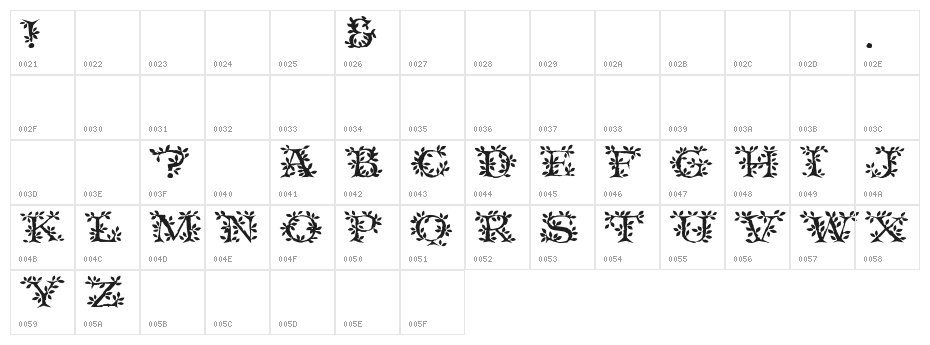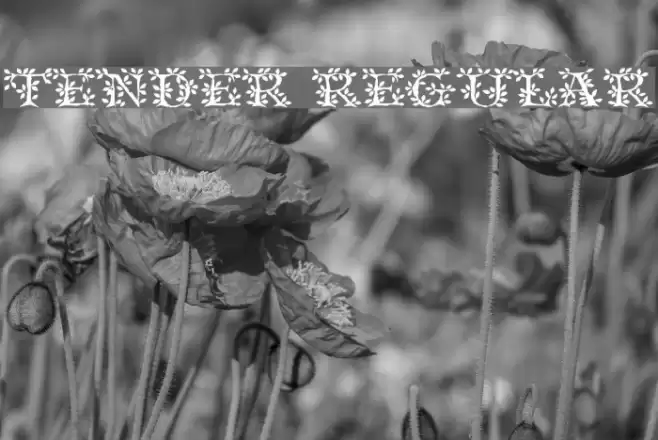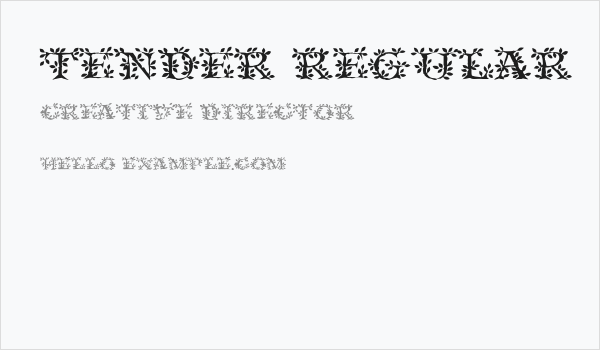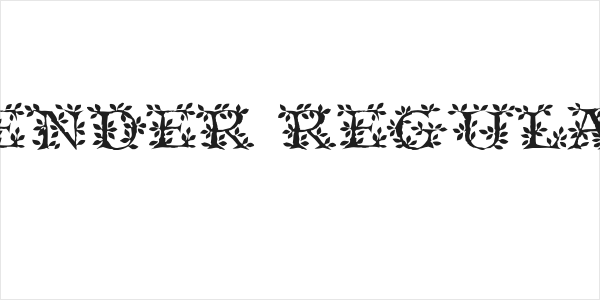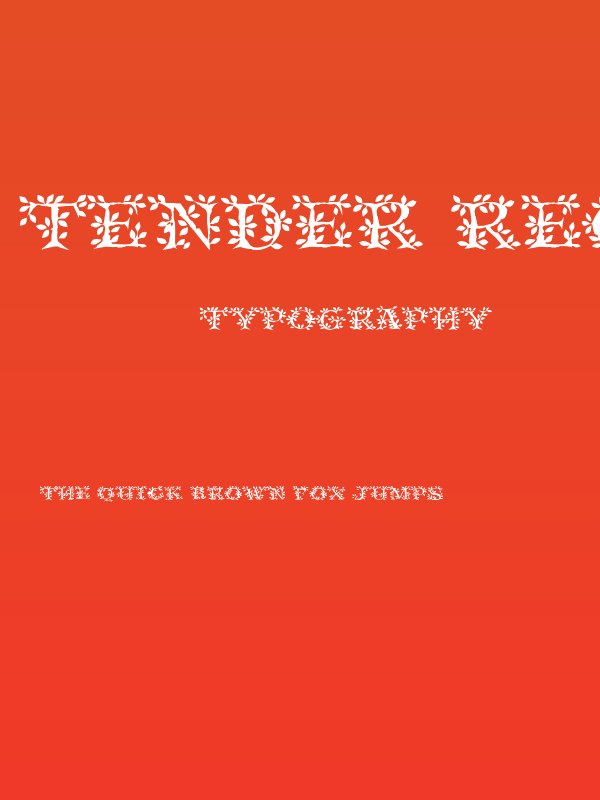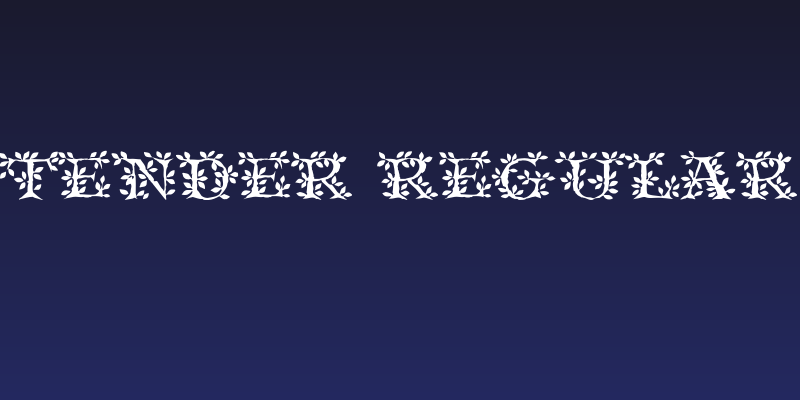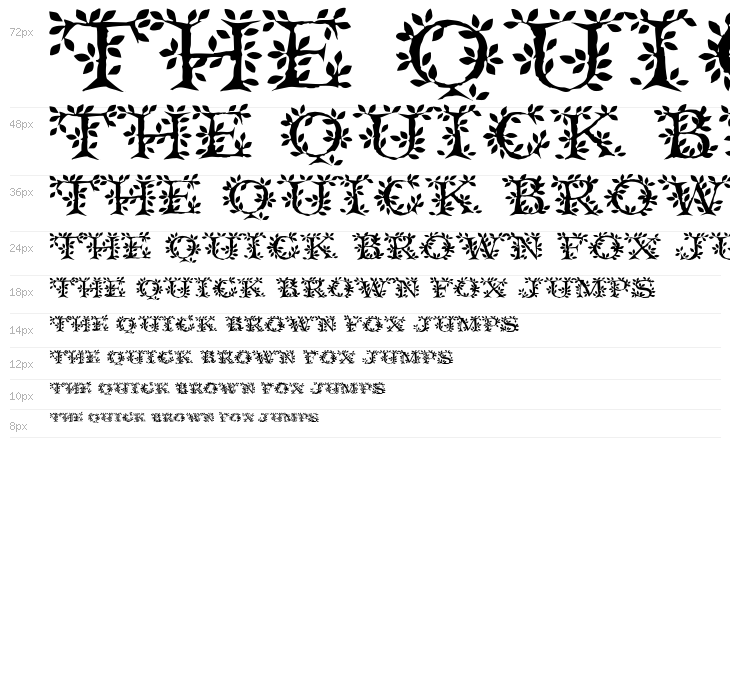
Tender Regular Font
Tender Regular Description
This font features an intricate design with decorative elements that resemble foliage or vines entwined around each letter. The uppercase and lowercase letters maintain a consistent style, with each character adorned with leaf-like patterns that give it a unique and artistic appearance. The font's decorative nature makes it stand out, offering a whimsical and organic feel. It is not suited for body text due to its complexity but can be a striking choice for headlines or artistic projects where a natural or fantasy theme is desired.
| Use Case | Headlines, Artistic projects, Invitations |
| Proposed Projects | Ideal for use in fantasy-themed designs, wedding invitations, artistic posters, or any project requiring a touch of nature-inspired elegance. |